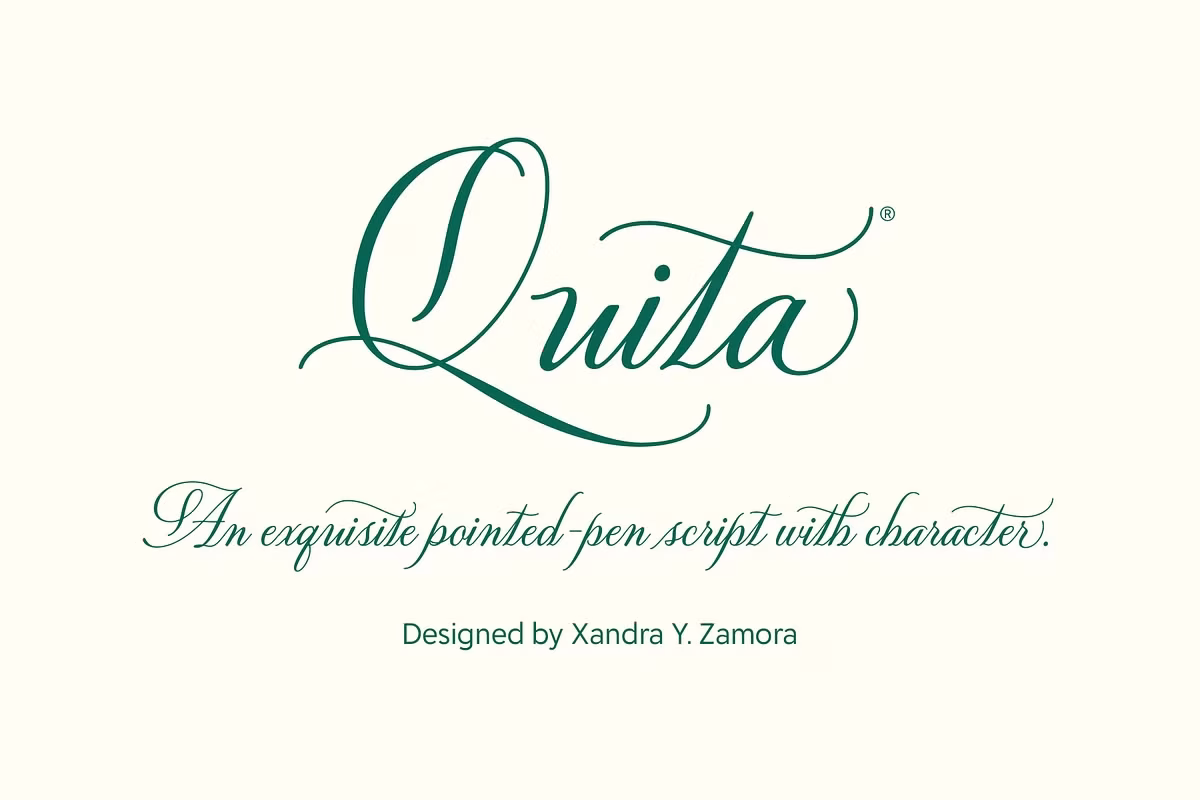
Quita Font Free Download is a stylish and modern script typeface with a handwritten feel, perfect for branding, wedding invitations, logos, and social media graphics. Its elegant curves and smooth flow give any design a personal and creative touch. Please note that you must purchase this font for commercial use, but it is available as a free download for testing purposes. Whether you're crafting a romantic project or building a trendy brand, Quita Font Free Download brings charm, sophistication, and a human touch to your typography.